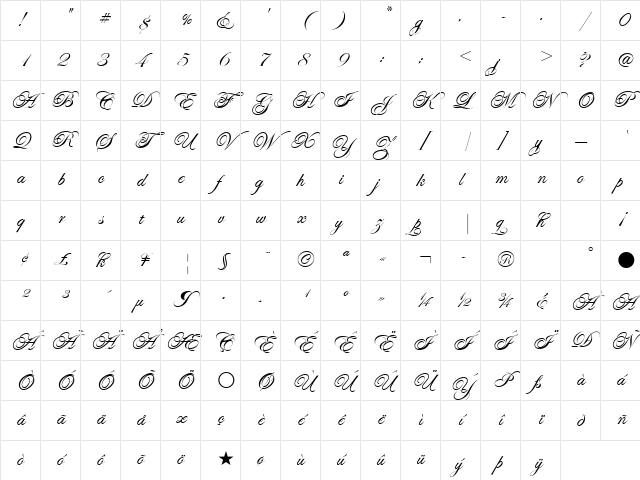
Edwardian Alternate Medium
Edwardian Alternate Family
Edwardian Alternate Medium
Edwardian Alternate Medium Uppercase Preview
Edwardian Alternate Medium Lowercase Preview
Edwardian Alternate Medium Numeric Preview
Complete Edwardian Alternate Medium glyph index. Displaying only characters natively supported by Edwardian Alternate Medium font.
Design Context for Edwardian Alternate
Edwardian Alternate is a composed and adaptable typeface that performs quietly and consistently across a wide range of design contexts.